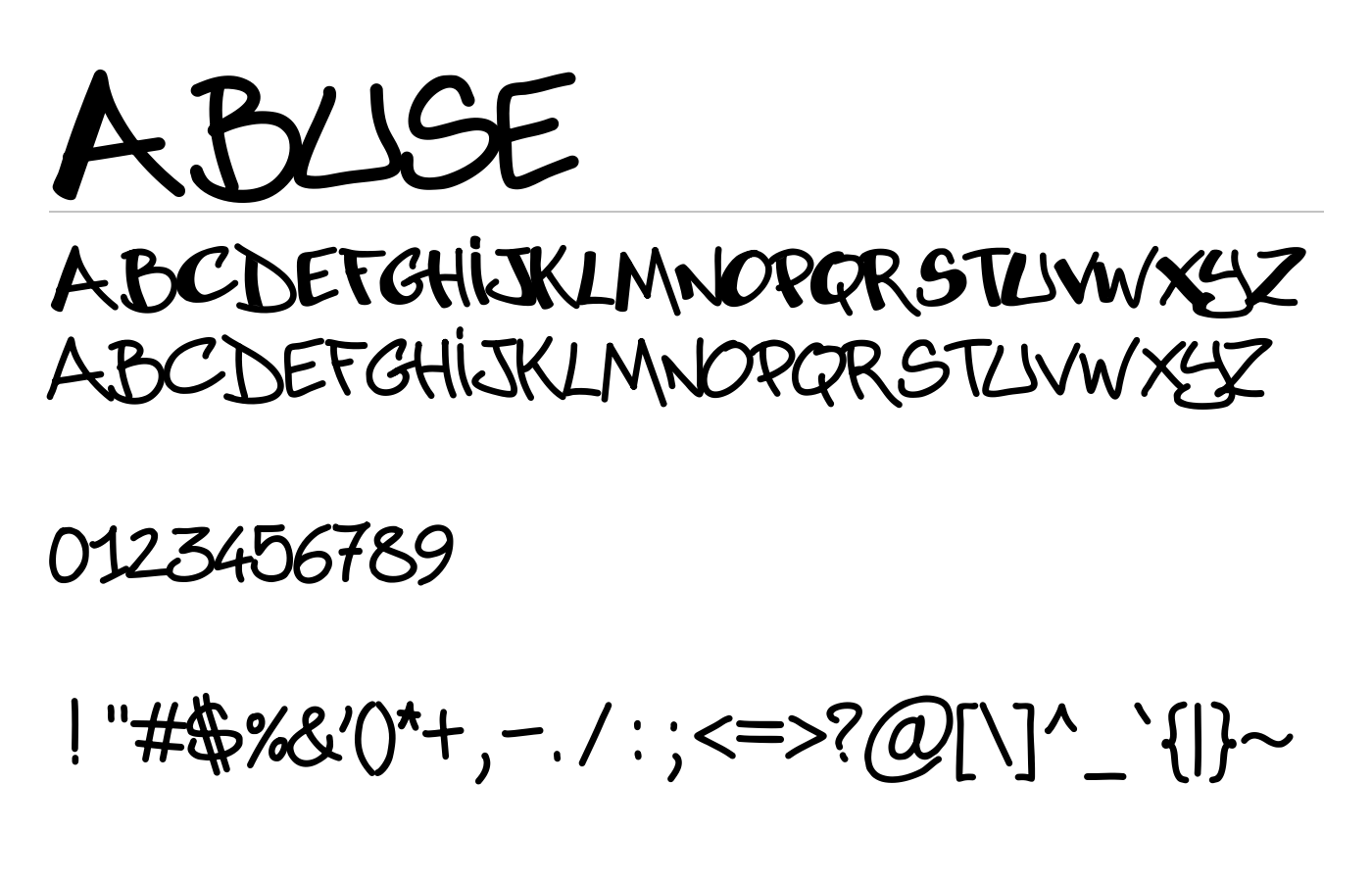
Abuse Font is a casual, handwritten sans serif typeface with a playful and slightly rough style, featuring irregular strokes and a lively, informal feel. Its loose, dynamic letterforms and energetic character make it ideal for creative, youthful designs, informal branding, and projects that seek to convey personality and spontaneity. This font works well in headlines, posters, and other display uses where a fun, approachable tone is desired.
Abuse Font
About Abuse Font
| Font family | Abuse Font |